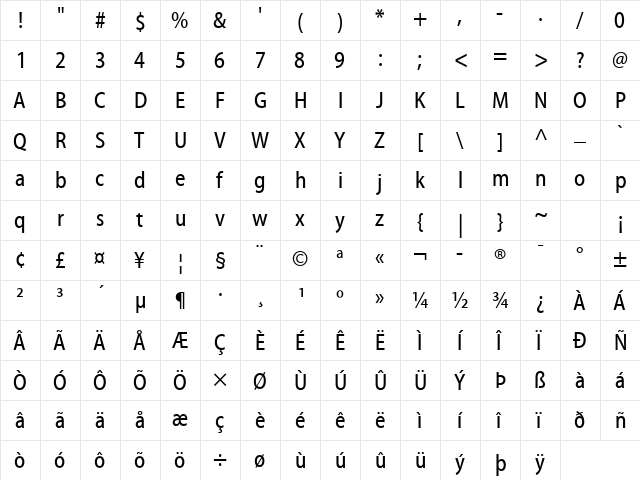
Myriad Web Pro Condensed
| Designer | Robert Slimbach and Carol Twombly |
Design Context for Myriad Web Pro Typeface
Myriad Web Pro takes a measured approach to typography — its balanced proportions and neutral character make it a reliable workhorse for both digital and print work. The condensed width makes it efficient for tight spaces without sacrificing legibility.